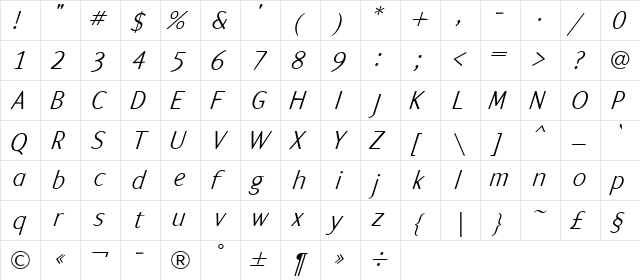
ArtemiusSans Light TT Regular Italic Font Preview
Design Context for ArtemiusSans Light TT Typeface
ArtemiusSans Light TT offers clean, dependable letterforms without strong stylistic allegiance, making it a practical choice for designers who need flexibility. The dynamic lean of this cut emphasises speed and emphasis in any layout. Its slender proportions lend an understated elegance to any composition.
Pro Tip: Use ArtemiusSans Light TT for emphasis, pull quotes, and subheadings where its slanted energy can add rhythm to the layout.